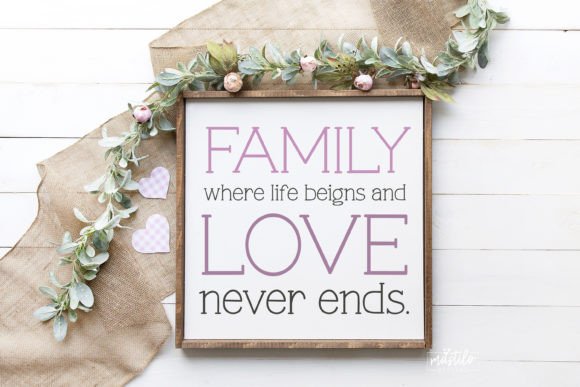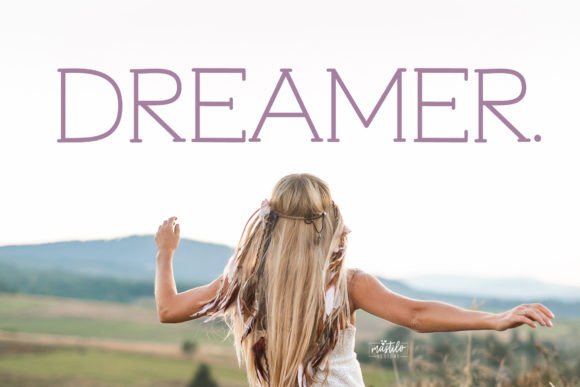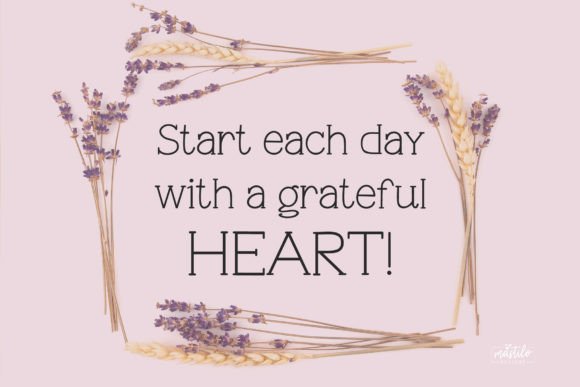
Introduction to Every Day Font
Introducing Every Day, a cute hand-drawn serif font.
It’s a versatile font with plenty of ligatures and stylistic alternates, with possibilities for use for all your projects Every Day font is perfect for: logos + branding creating retro shirt designs and other apparel stickers, phone cases, home decor social media templates and Instagram quotes Cricut and silhouette projects procreate and so much more.